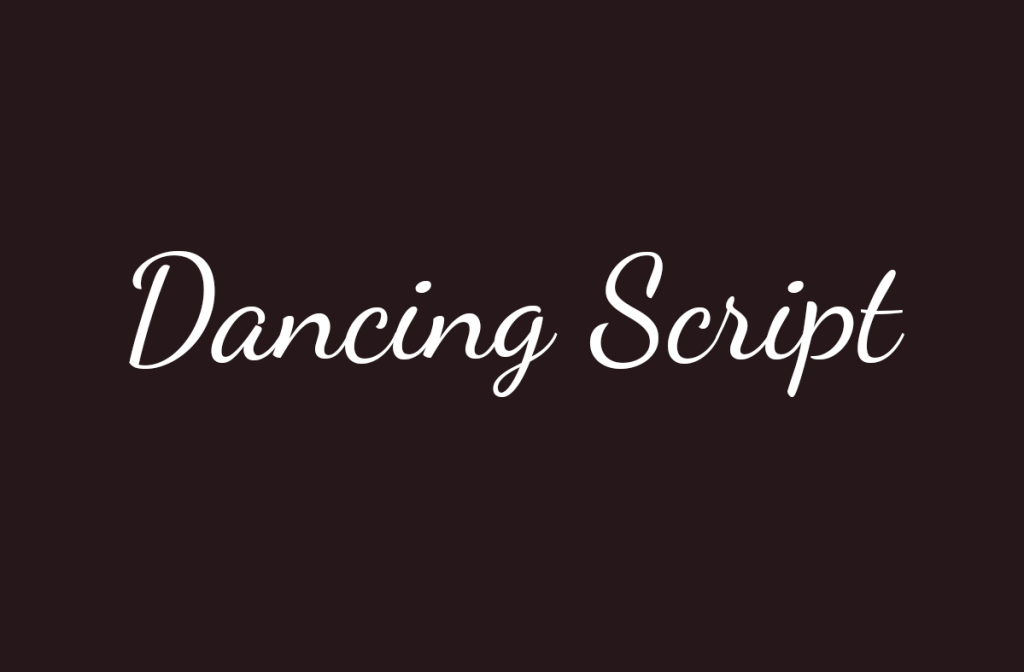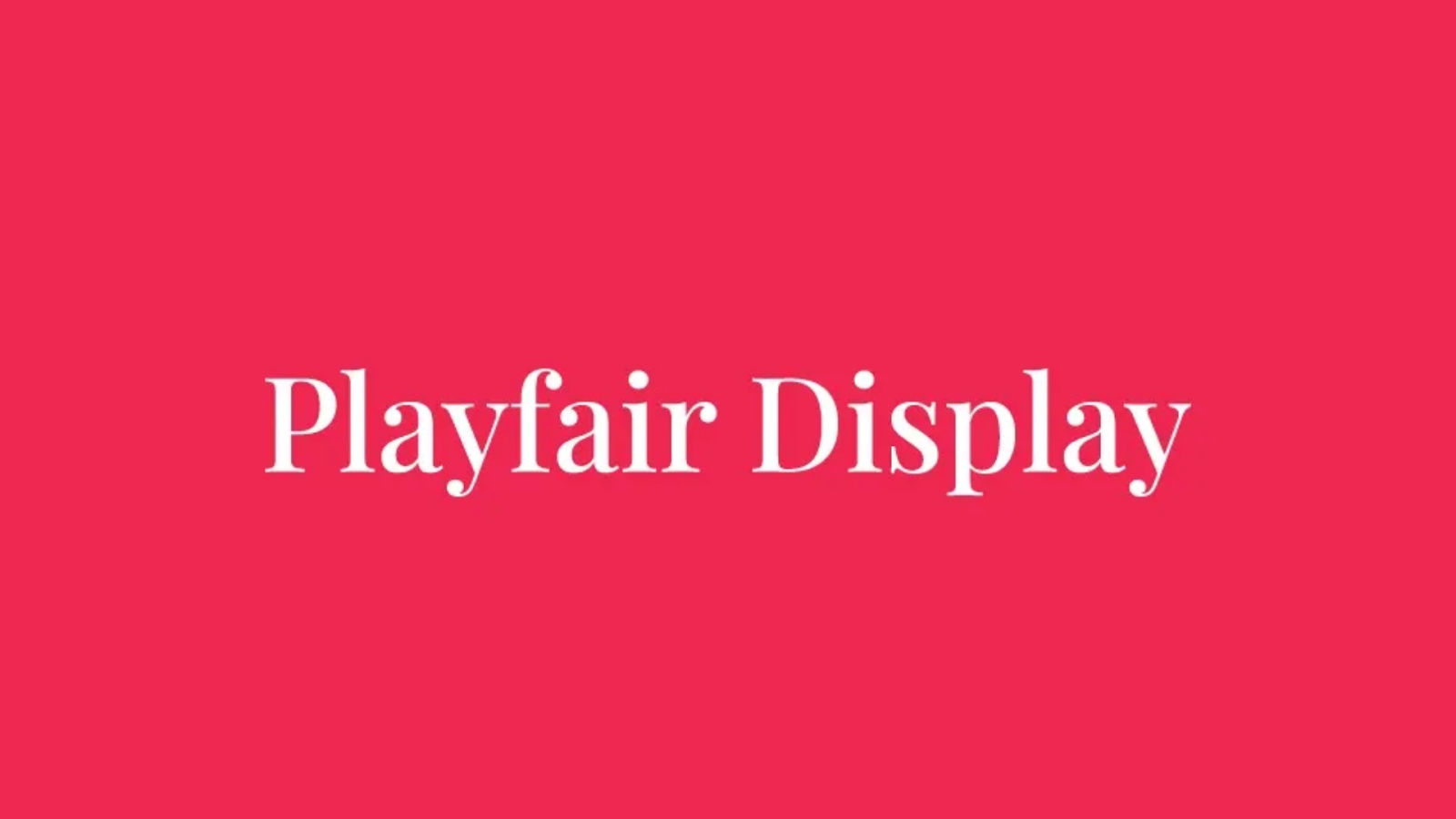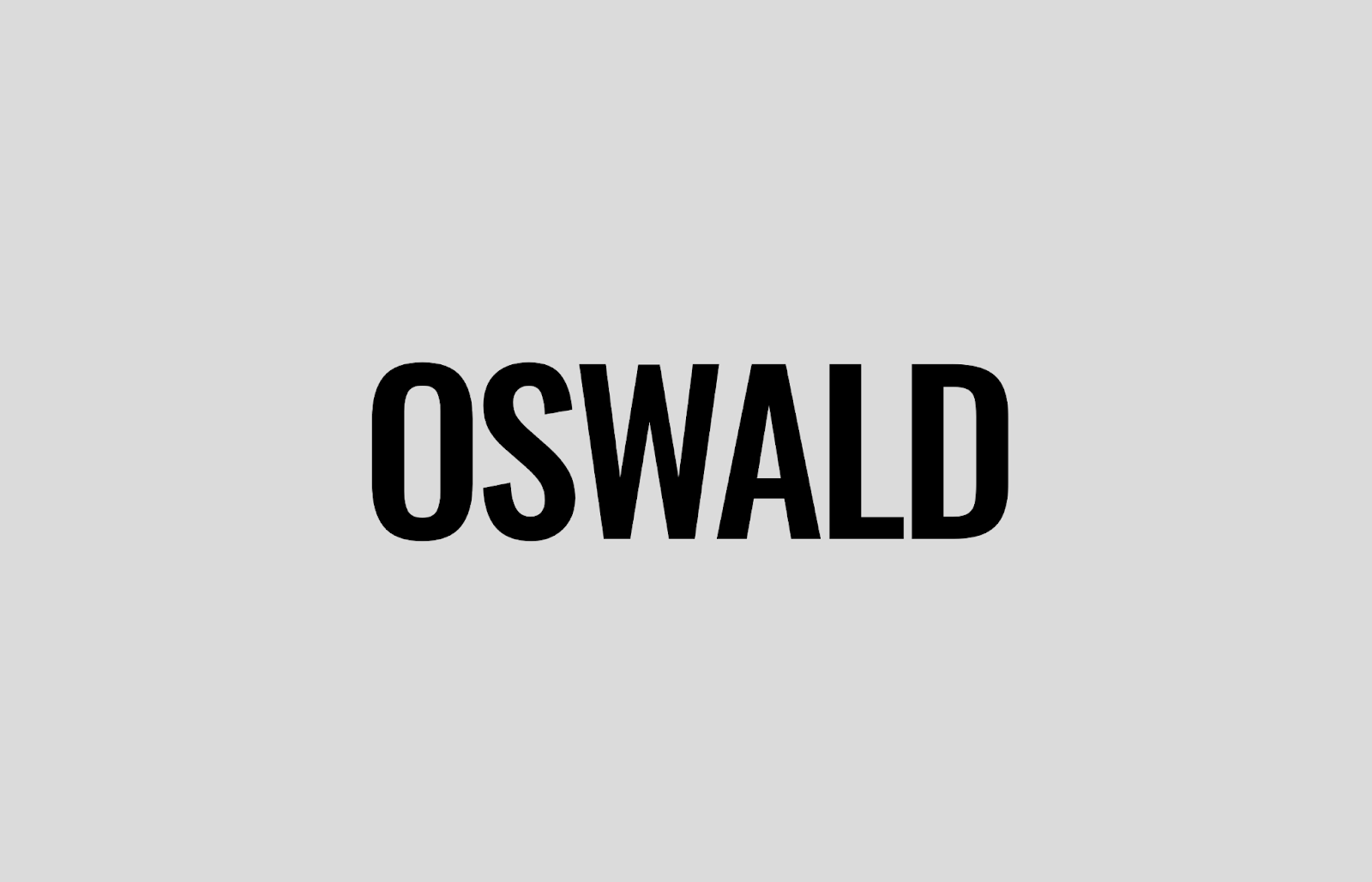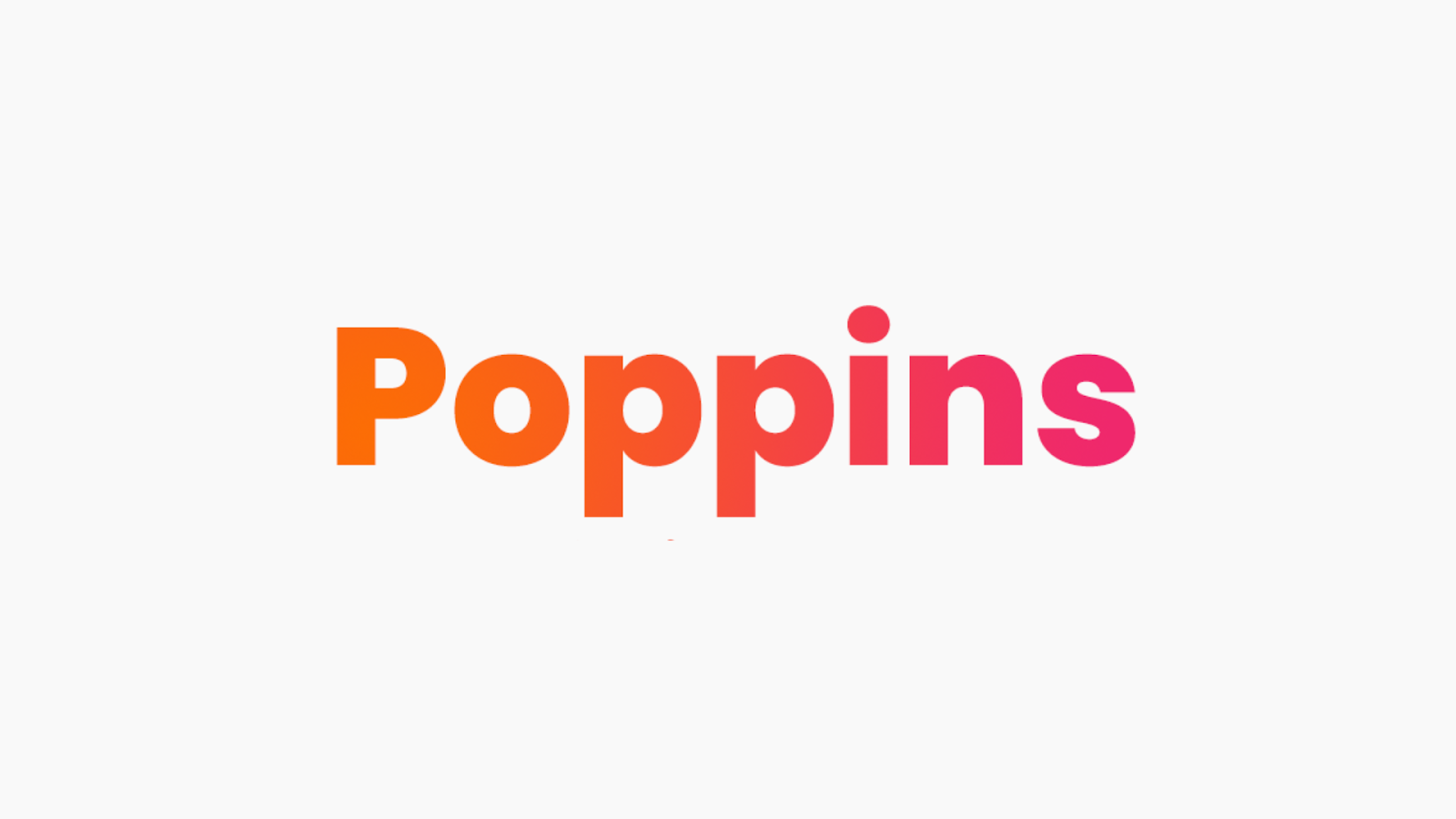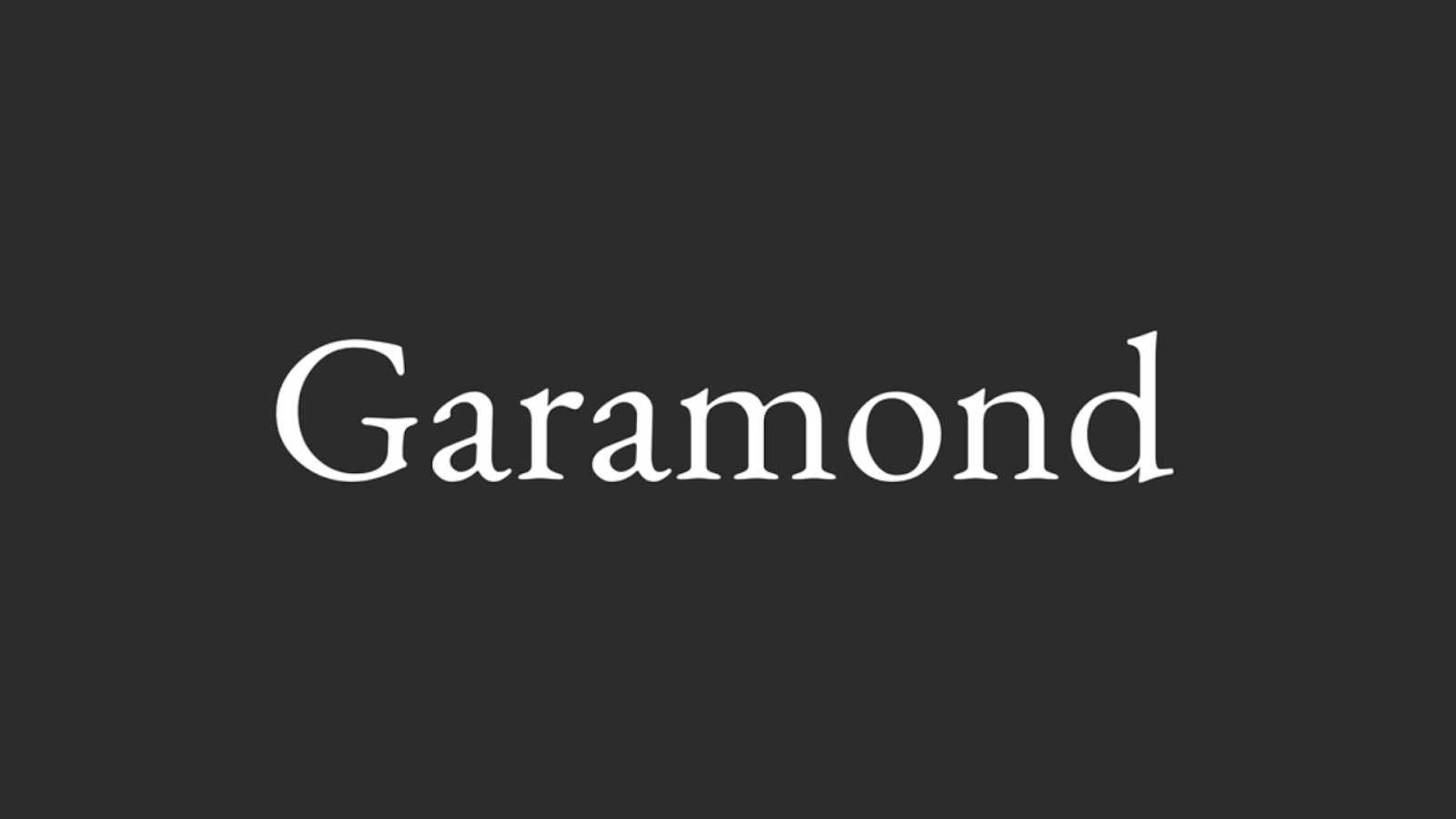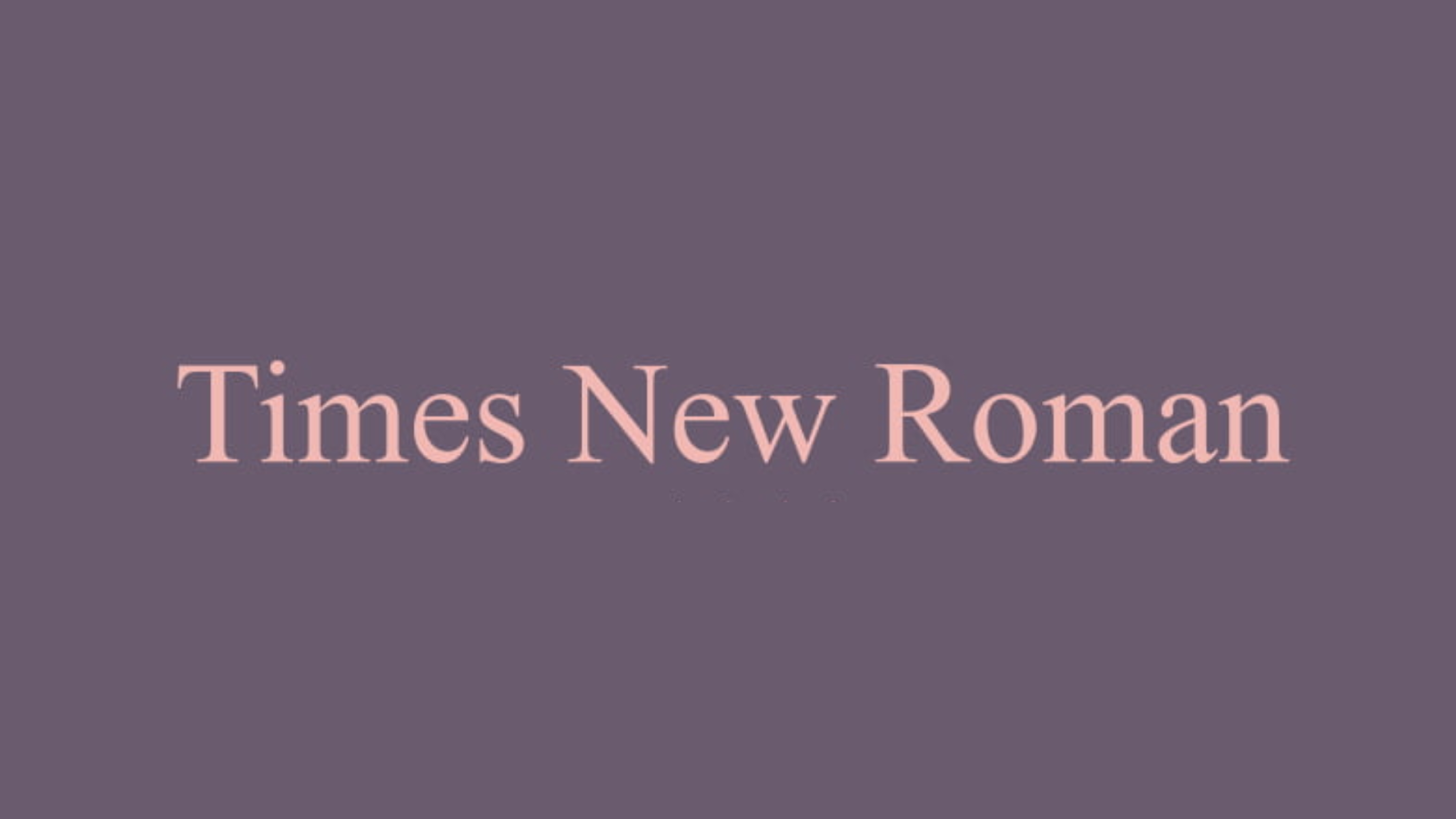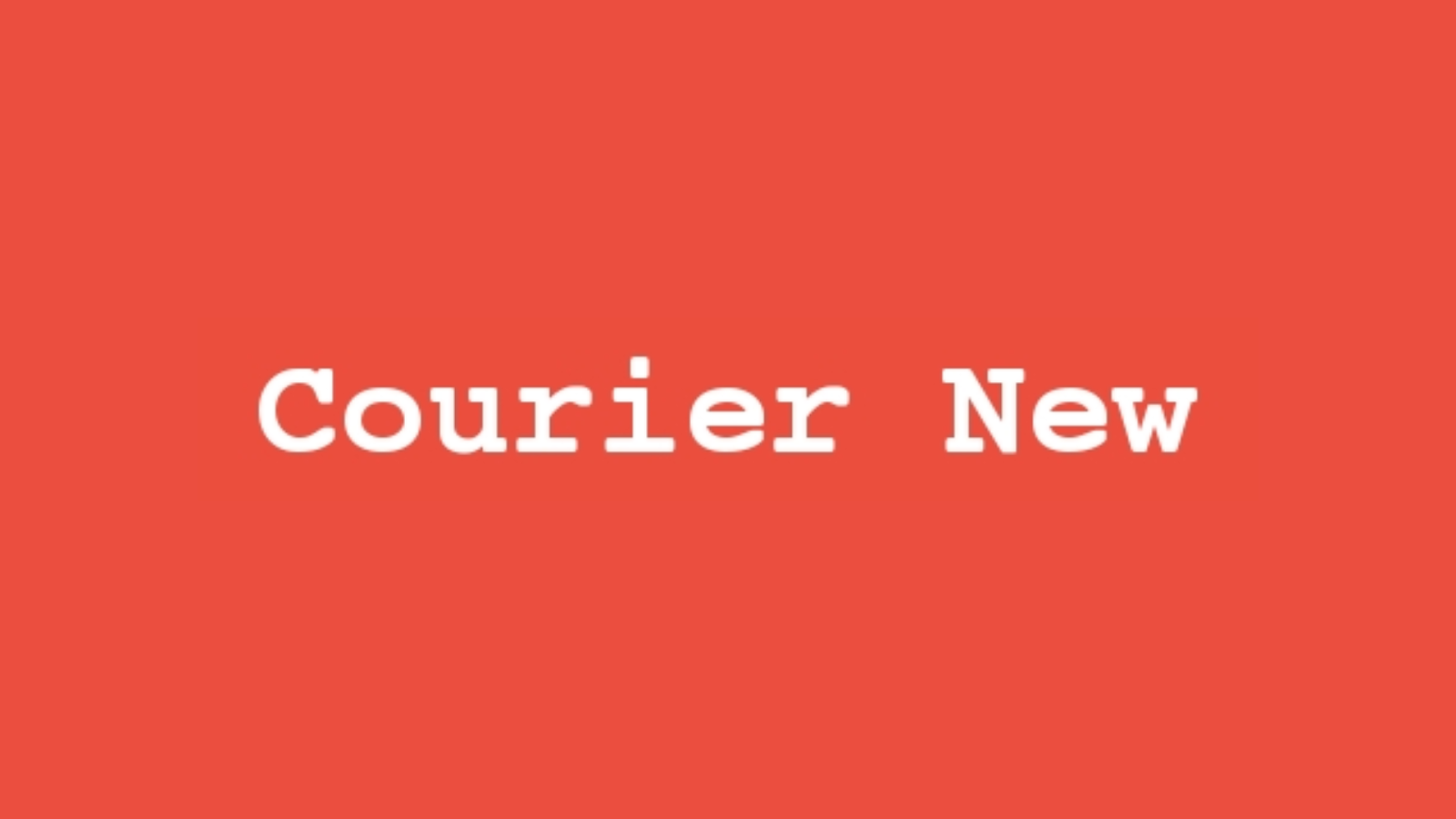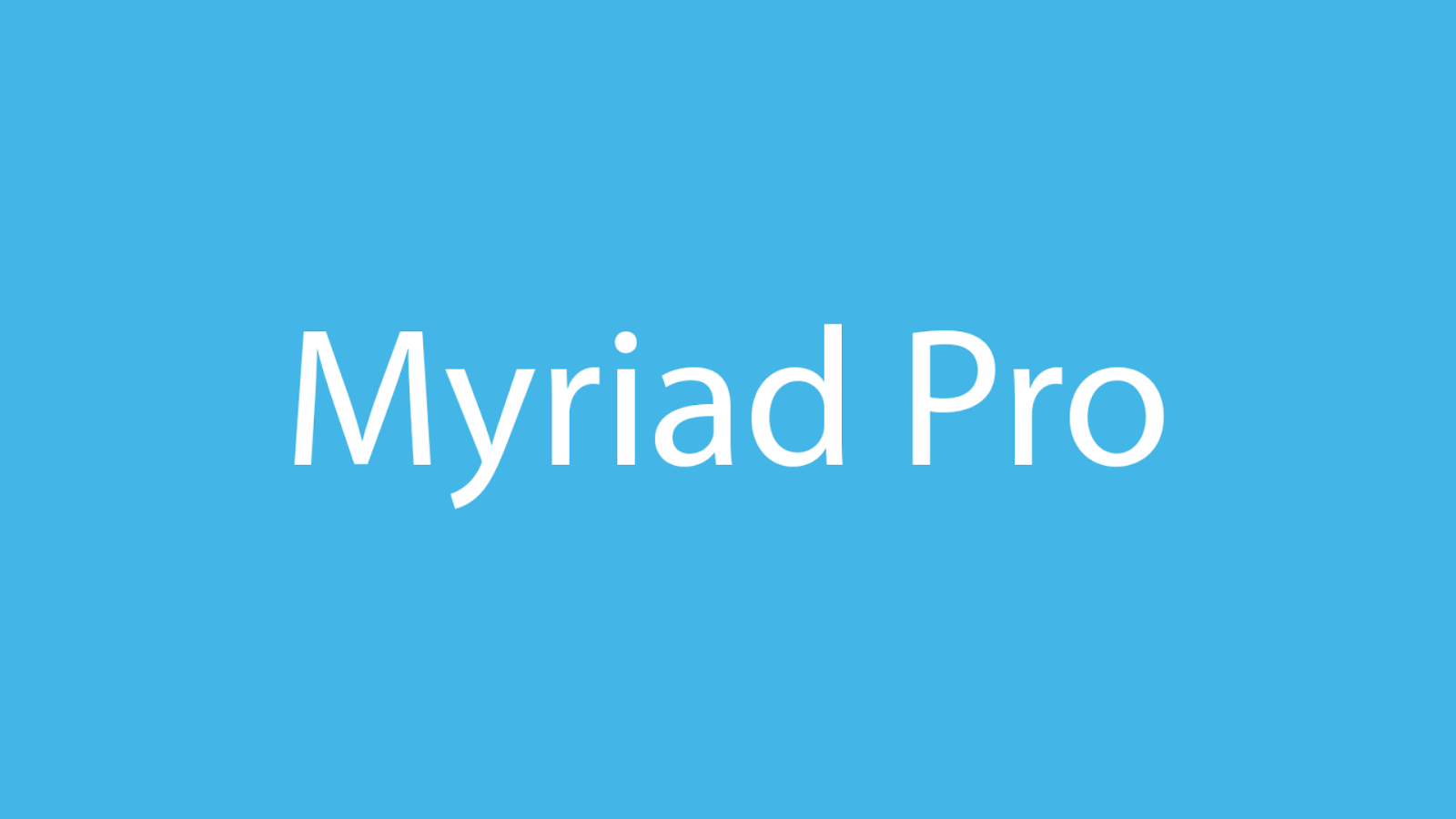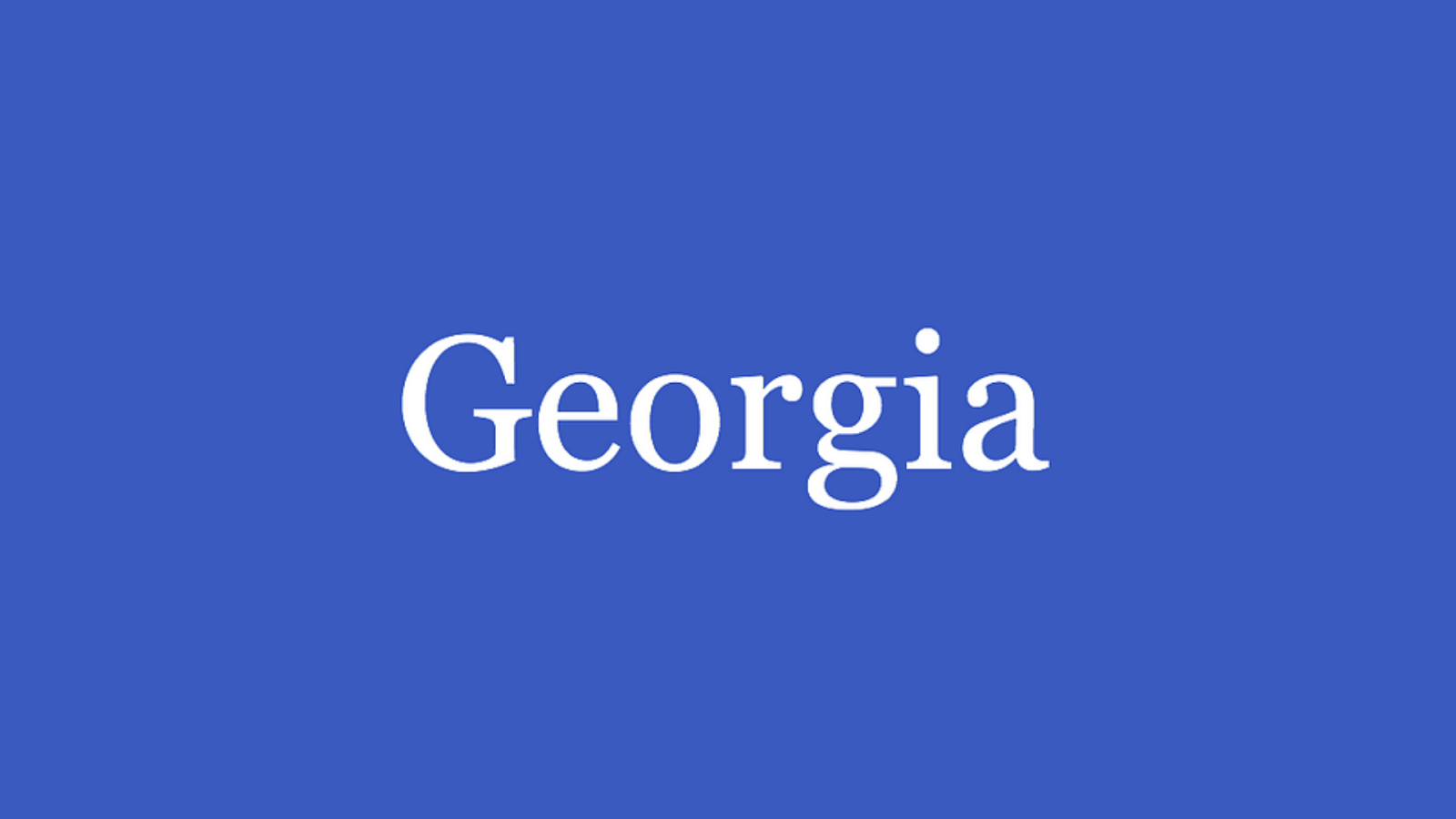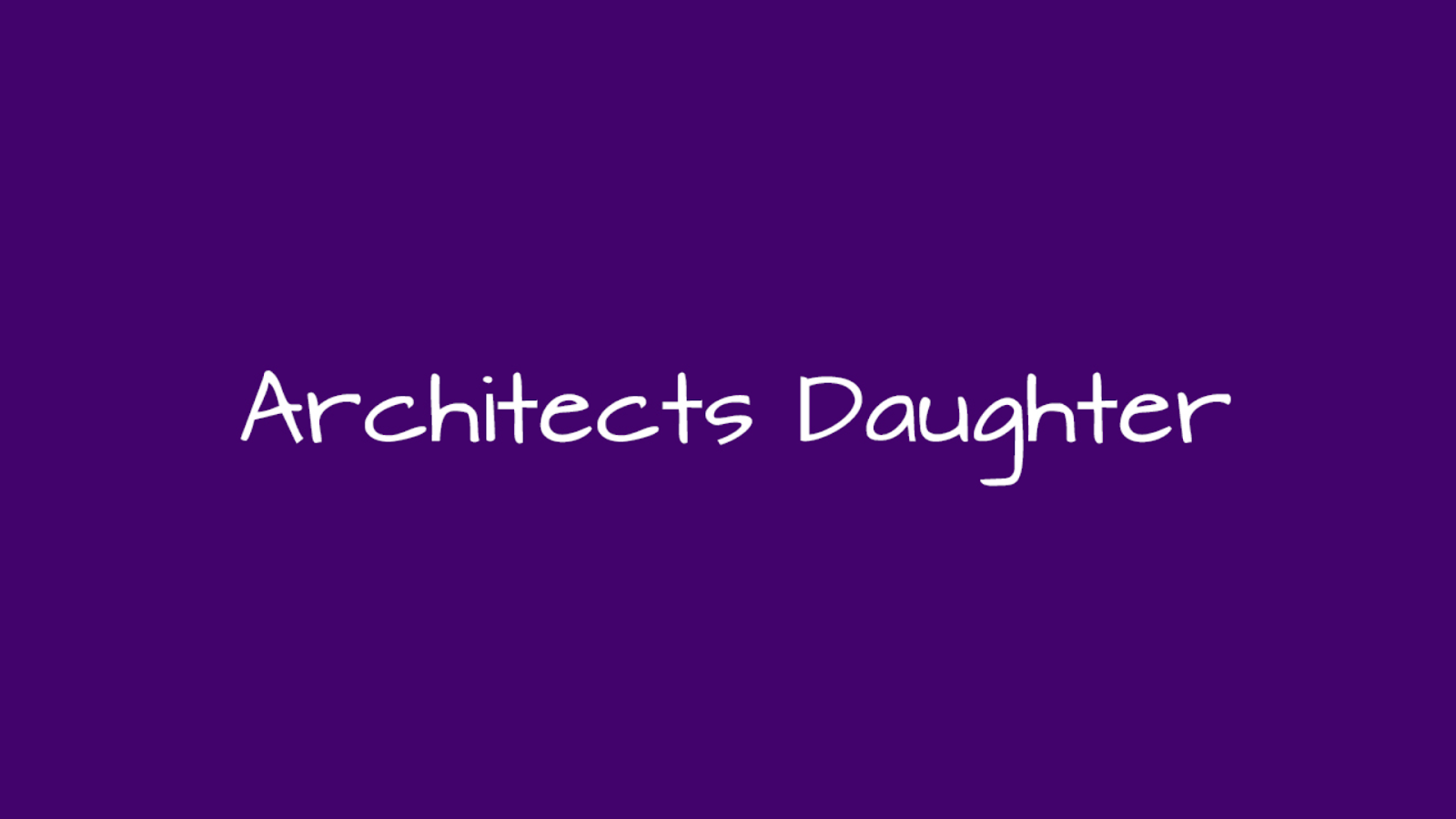
In the world of YouTube content creation, the visual appeal of your video thumbnail is just as crucial as the content itself.
Among the many elements that contribute to a thumbnail's success, the choice of font plays a pivotal role.
The best YouTube thumbnail fonts not only grab attention but also convey the essence of your video quickly, making it a very crucial step in your process of making a YouTube video.
This allows you to dramatically increase your video's click-through rate and enhance viewer engagement all from your thumbnails.
In this blog, we take a look at 30 hand-picked fonts for YouTube thumbnails that stand out for their readability, style, and ability to engage potential viewers.
Whether you're aiming for a bold, minimalist, or quirky vibe, our curated list has something for everyone. Let’s help you explore different fonts and find the perfect one to elevate your thumbnails and captivate your audience instantly.
Roboto is a highly versatile sans-serif font that offers a modern and clean look.
Its geometric forms combined with friendly and open curves make it perfect for YouTube thumbnails that demand readability without sacrificing style.
This isn’t just one of the best fonts for YouTube thumbnails but also for YouTube banners, giving first-time visitors a bird's-eye view of what your YouTube channel is all about.
The font provides a natural warmth among viewers, making it a universal choice for making content readable and inviting.
Impact font lives up to its name by offering a bold, striking appearance that makes an impact on viewers the second they lay their eyes on this font.
This sans-serif bold font is designed for maximum readability, even at smaller sizes, making it a top choice for thumbnails that need to stand out in a crowded YouTube feed.
The condensed letters and tight spacing ensure that your message is clear and direct and is a perfect choice for gaming, sports, and entertainment content.
The Impact YouTube thumbnail text font conveys urgency and grabs attention with its boldness, signaling content that's impactful, exciting, or humorous.
It appeals to viewers' desire for dynamic and assertive content, promising an engaging and memorable experience. So, if you want to learn how to make a YouTube video that is memorable, this is the font style for you.
Playfair Display is an elegant serif font with high contrast and distinctive style, lending a touch of sophistication to any thumbnail.
It is one of the best YouTube thumbnail fonts on the list, inspired by the classic serif fonts of the 18th century but with a modern twist.
Perfectly suitable for fashion, beauty, and luxury lifestyle channels seeking to add a refined vintage touch to their thumbnails.
The attention-grabbing font evokes elegance and sophistication, appealing to viewers seeking content that is thought-provoking and cultured.
Oswald is a reworking of the classic sans-serif font styles like Alternate Gothic from the early 20th Century.
Its characters have been re-drawn and reformed to better fit the pixel grid of standard digital screens.
It is one of the best fonts for YouTube thumbnails, ideal for viewers who prefer modern, clean aesthetics and have a knack for straightforward, contemporary content.
Which makes it a great font choice for thumbnails that need to give off a strong, assertive vibe, perfect for content related to news, commentary, and education.
Bebas Neue is a clean, all-caps sans-serif font that offers a bold and impactful look without being overpowering.
Its uniform line weight creates a cohesive look that's easy on the eyes, making it perfect for thumbnails that aim to be straightforward yet striking.
This font is quite popular for social media usage in places like Instagram Stories and social media videos in general.
This font is particularly effective for DIY, how-to, and tutorial-based content that clearly states the topic of your YouTube video and looks simple, yet modern.
Leveraging its boldness and simplicity, the font greatly appeals to viewers looking for direct and impactful content.
The font gives a feeling of modernity and strength, making it ideal for eye-catching and viral headlines that promise an engaging viewing experience while keeping things simple.